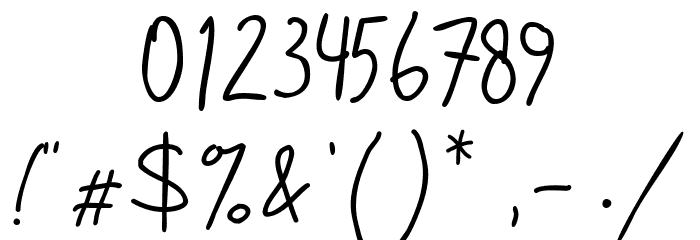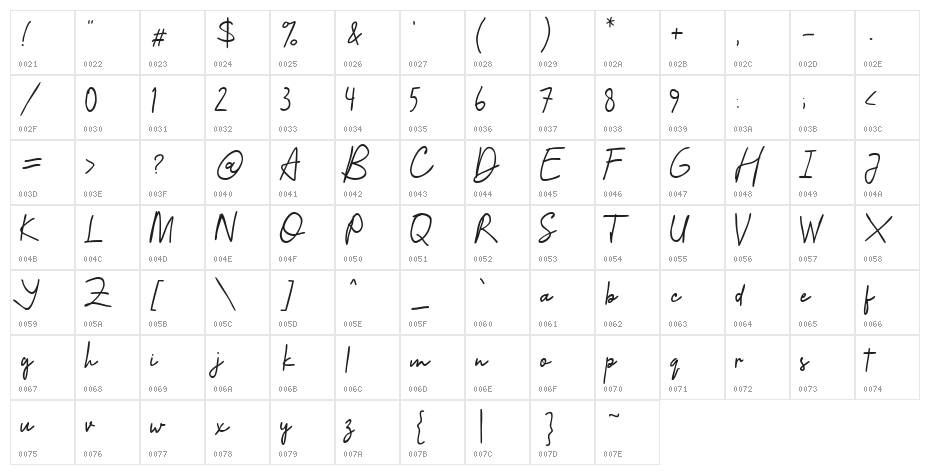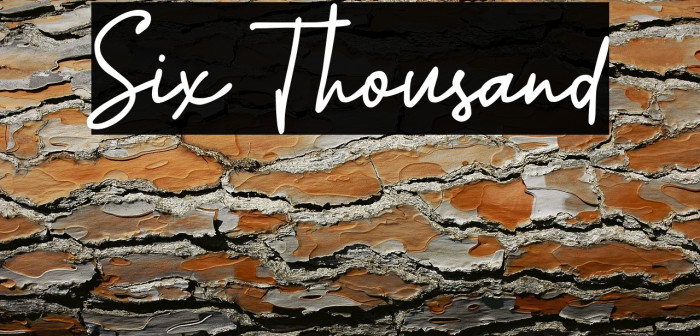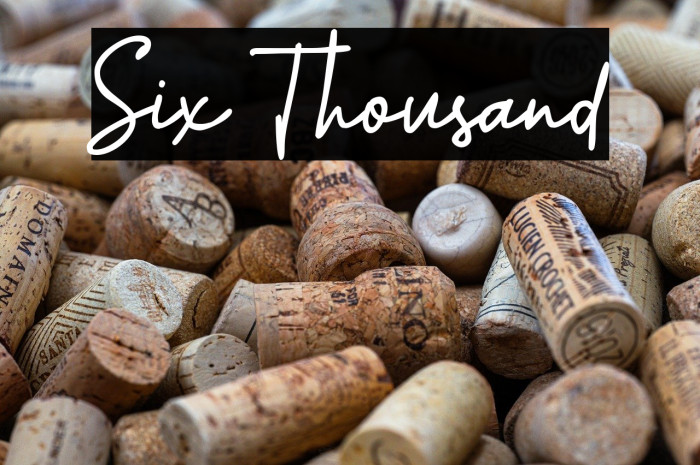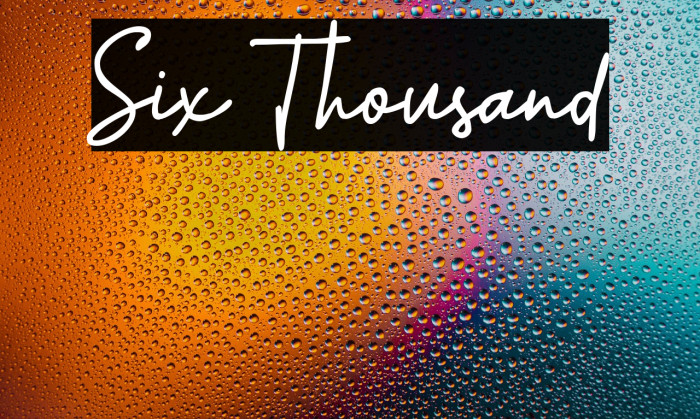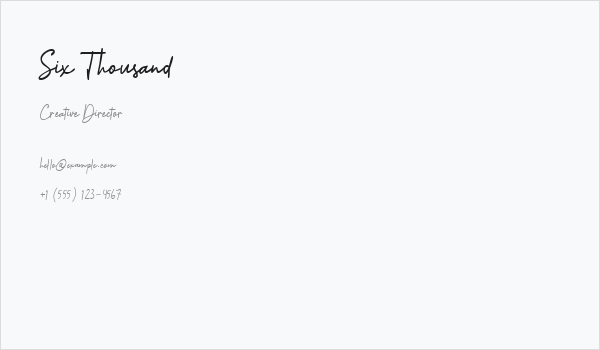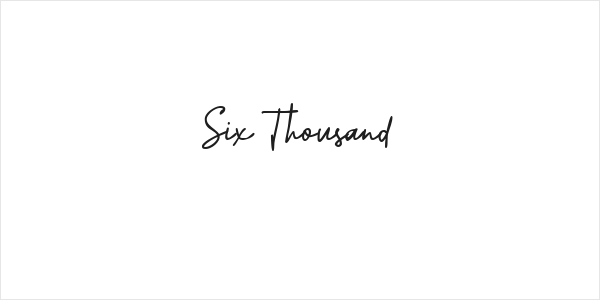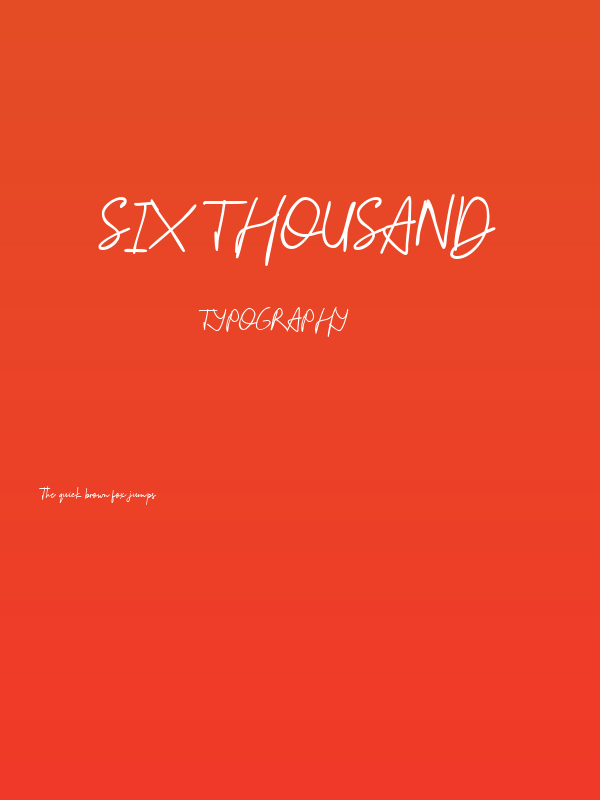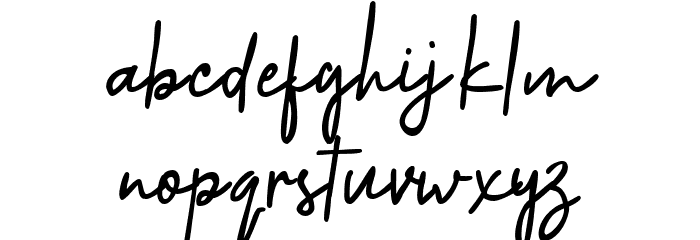
Six Thousand Font
Six Thousand Description
This font features a lively and dynamic handwritten style, characterized by its fluid and natural strokes. The uppercase letters exhibit a playful yet elegant form, with varying stroke widths that add a sense of movement and personality. The lowercase letters maintain this energetic flow, creating a cohesive and harmonious look. Numbers and special characters are crafted with the same attention to detail, ensuring consistency across all elements. The overall appearance is casual yet sophisticated, making it suitable for a variety of creative applications.
| Proposed Projects | Ideal for greeting cards, invitations, personal branding, and creative projects that require a personal touch. |